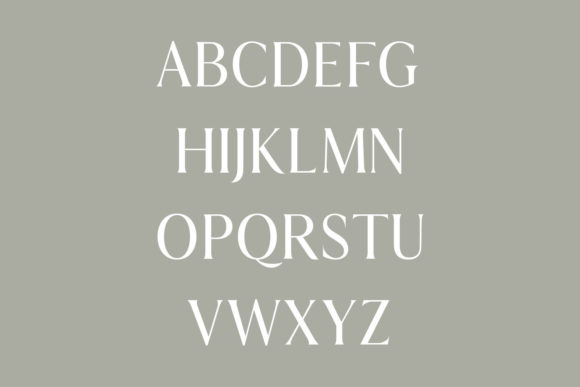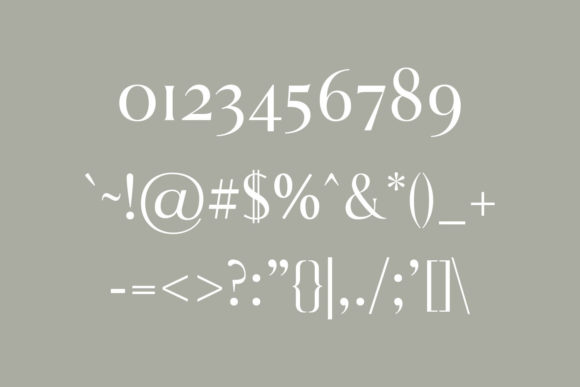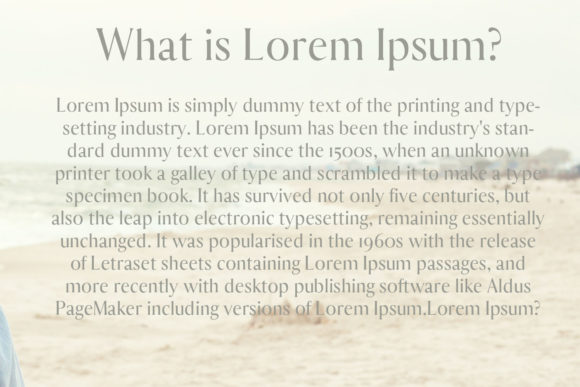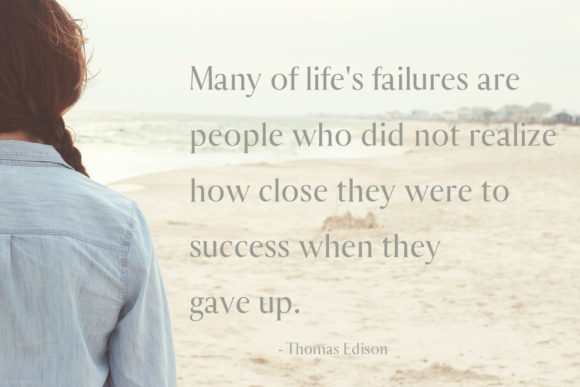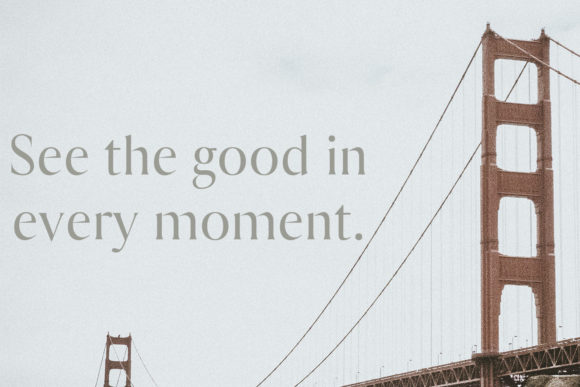
Aadam Family Font: Elevate Your Designs with Modern Elegance
In the world of typography, a font can make or break a design. For designers and crafters seeking a modern and classy serif font that exudes elegance and sophistication, look no further than the Aadam Family Font. This stunning font family is designed to add a touch of charm to your designs, making it perfect for elegant projects that require a minimalist and solemn typeface.
What is Aadam Family Font?
Aadam is a contemporary serif font family that boasts a sleek and refined aesthetic. Its clean lines, subtle curves, and balanced proportions make it an excellent choice for designers seeking a sophisticated and understated typeface. The Aadam Family Font is versatile and can be used for a wide range of design projects, from luxury branding and advertising to packaging and editorial design.
Key Features of Aadam Family Font
• Modern and Classy Design: Aadam’s sleek and refined design makes it perfect for designers seeking a modern and elegant typeface.
• Serif Font: The subtle serifs on Aadam add a touch of sophistication and elegance to your designs.
• Minimalist and Solemn: Aadam’s clean lines and balanced proportions make it an excellent choice for designs that require a minimalist and solemn typeface.
• Multi-Language Support: Aadam supports multiple languages, making it a great choice for global brands and designers.
Why Choose Aadam Family Font?
With so many fonts available, why choose Aadam Family Font? Here are just a few reasons why Aadam stands out from the crowd:
• Unique and Distinctive: Aadam’s modern and classy design sets it apart from more traditional serif fonts.
• Highly Versatile: Aadam can be used for a wide range of design projects, from luxury branding to editorial design.
• Elegant and Sophisticated: Aadam’s sleek and refined design makes it perfect for designers seeking an elegant and sophisticated typeface.
How to Use Aadam Family Font in Your Designs
Using Aadam Family Font in your designs is easy. Here are a few tips to get you started:
• Pair with Bold Fonts: Pair Aadam with bold fonts for a striking contrast that adds visual interest to your designs.
• Use for Headings and Body Text: Aadam is suitable for both headings and body text, making it a great choice for editorial design and advertising.
• Experiment with Colors: Aadam looks great in a range of colors, from classic black and white to bold and bright hues.
In conclusion, the Aadam Family Font is a modern and classy serif font family that is sure to elevate your designs. Its sleek and refined design, versatility, and elegant aesthetic make it perfect for designers seeking a sophisticated and understated typeface. Whether you’re working on a luxury branding project or an editorial design piece, Aadam is an excellent choice. So why wait? Download Aadam Family Font today and add a touch of charm to your designs!
• Is Aadam Family Font suitable for body text? Yes, Aadam Family Font is suitable for both headings and body text.